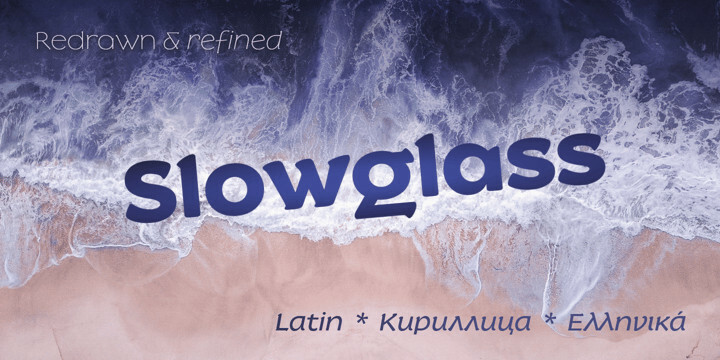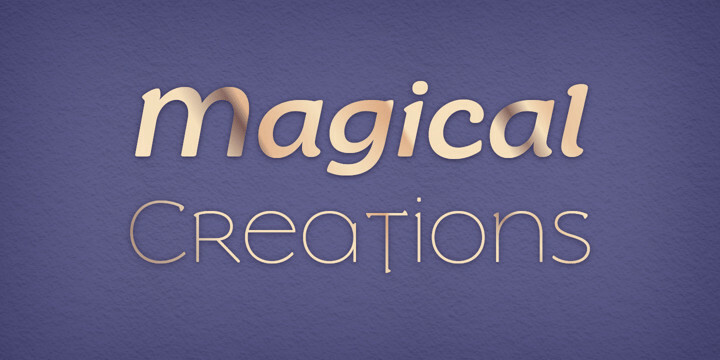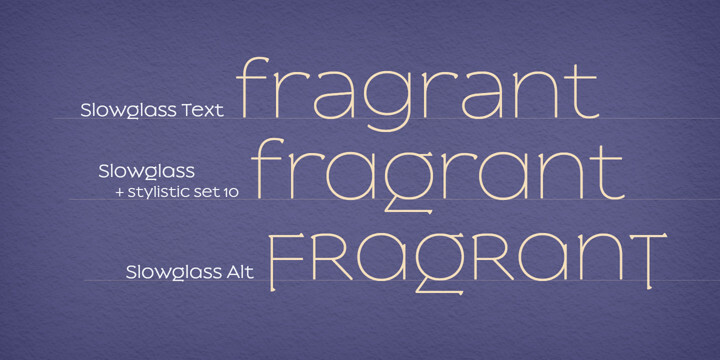
Slowglass Font Family
Slowglass Font FamilySlowglass is a geometric semi-serif accompanied by geohumanist italics. Softly rounded edges lend it a friendly tone. The typeface includes two categories of stylistic alternates, available as font features as well as complementary font subfamilies. Text forms for increased legibility (Slowglass Text) and uncial-inspired unicase variants (Slowglass Alt). At over 1500 glyphs per weight, the fonts support 80+ Latin-based languages (incl. Vietnamese), 14 Cyrillic-based languages and polytonic Greek.